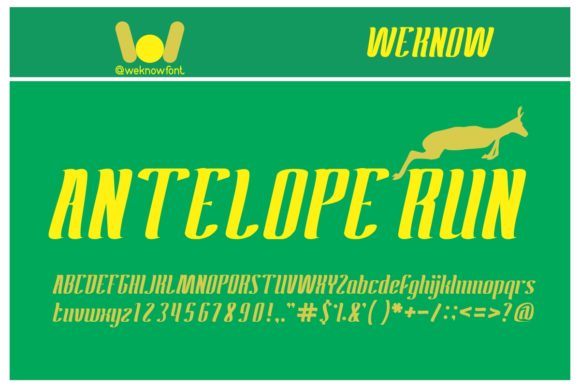
Journey into the captivating realm of Antelope Run, the font that embodies boldness and assertiveness in every stroke. Designed with the intention of making a statement, this display font is more than just a collection of characters—it's a catalyst for creative expression, ready to transform your designs into captivating masterpieces.
With Antelope Run at your disposal, tame the untamed corners of your imagination and watch as words ignite with an energy that leaps off the screen. Be it book titles, posters, logos, or invitations, this font will infuse your designs with an air of authority and confidence, ensuring they demand attention wherever they go.
Let Antelope Run be your trusted companion as you navigate the world of visual storytelling. Its bold strokes and unwavering presence will add a layer of sophistication to your creations, captivating your audience with every glance. Trust in the power of Antelope Run to elevate your designs to new heights, making them not just visually pleasing but utterly unforgettable.
Beyond its aesthetic prowess, Antelope Run holds a deeper significance for those who seek to connect with their audience on a profound level. Its assertive nature lends itself perfectly to conveying messages of strength, courage, and determination. Watch as your words take on a life of their own, resonating with readers and leaving an everlasting impact.
Indulge in the boundless possibilities that Antelope Run unlocks. Unleash your creativity, embrace the power of self-expression, and let your designs soar to unimaginable heights. This font is your passport to a world where boldness reigns supreme, where every project becomes a testament to your artistic prowess.
Step into the world of Antelope Run today and experience the thrill of creating designs that speak volumes, designs that leave a lasting impression on all who encounter them. Let this font be your ally in conquering the creative realm, transforming your visions into tangible works of art that ignite the senses and leave an enduring legacy of brilliance.